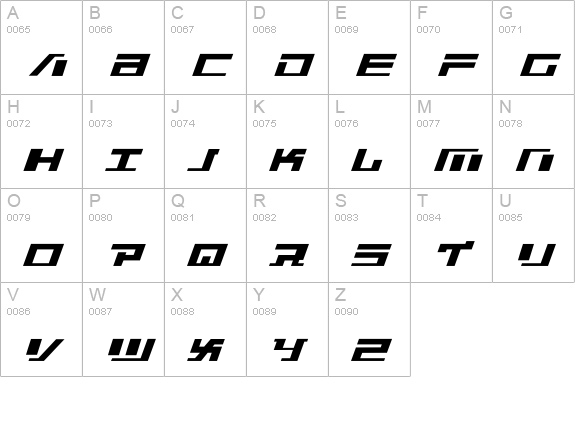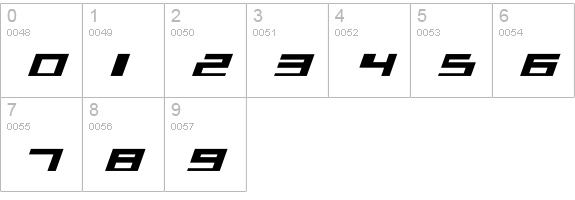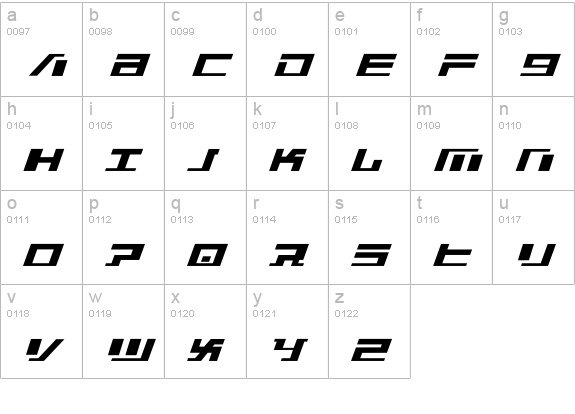
War Machine Font Details
Introducing War Machine font, a powerful and commanding typeface that exudes strength and determination. With its bold and rugged letterforms, this font embodies the essence of warfare, making it the perfect choice for projects that require a bold and impactful aesthetic. War Machine font is not only visually striking, but it also offers a seamless reading experience with its clear and legible design. Each letter is meticulously crafted to ensure readability, even at smaller sizes, allowing your message to be conveyed effortlessly to your audience. What sets War Machine font apart is its versatility. Whether you're designing a logo for a military-themed brand, creating eye-catching headlines, or adding a touch of strength to your social media posts, this font will never fail to make a lasting impression. And the best part? War Machine font is absolutely free to download at FontsMarket.com. Yes, you read that right! This incredible typeface can be yours without any cost, allowing you to unleash your creativity without breaking the bank. FontsMarket.com offers a vast collection of fonts, and War Machine font is just one of the many gems you'll find on this platform. So why wait? Don't miss out on the opportunity to enhance your designs with the sheer power and intensity of War Machine font. Download it now, and let your words become an unstoppable force that captures attention and leaves a lasting impact.